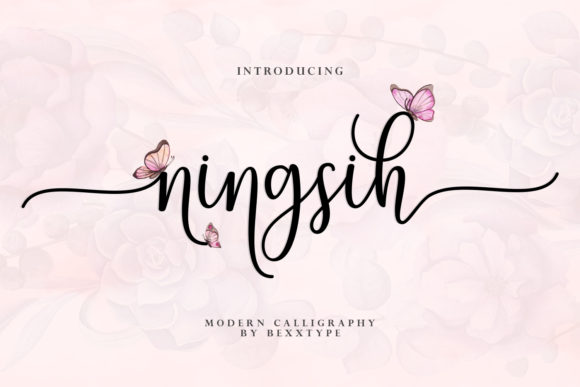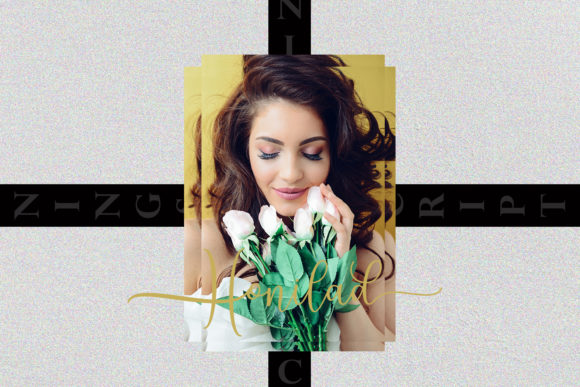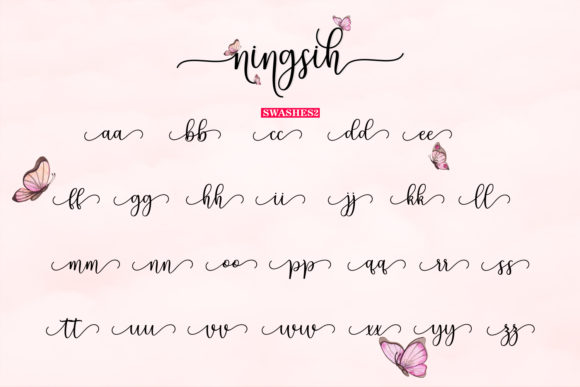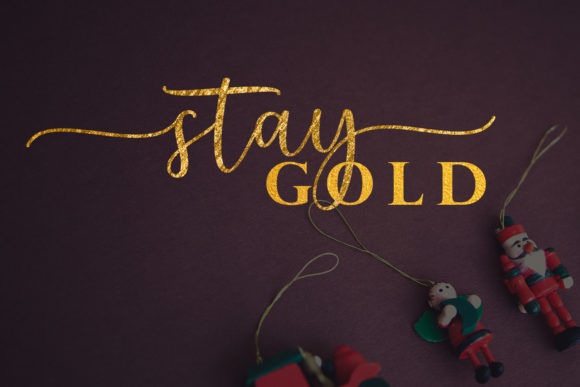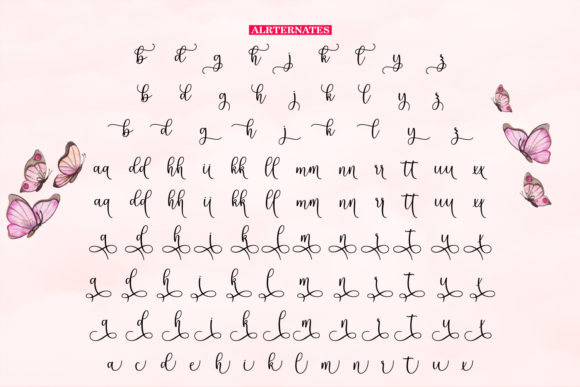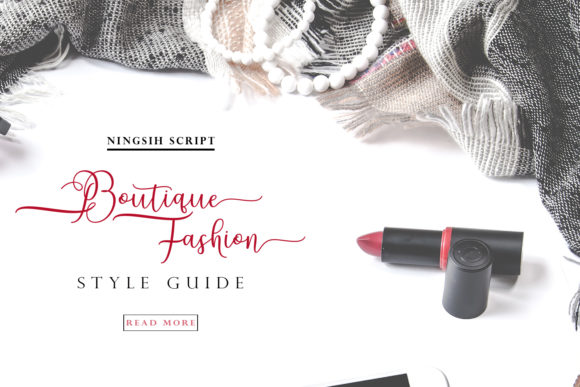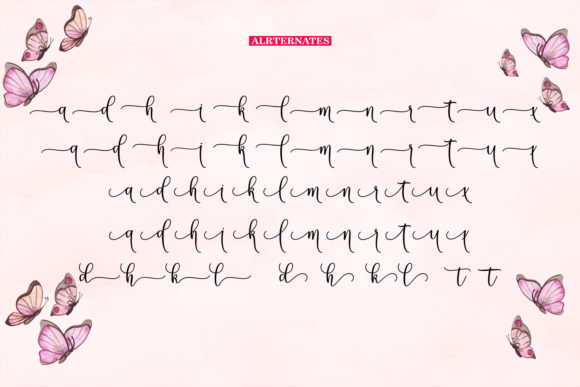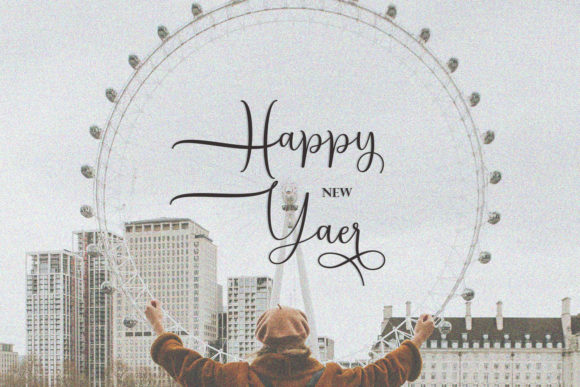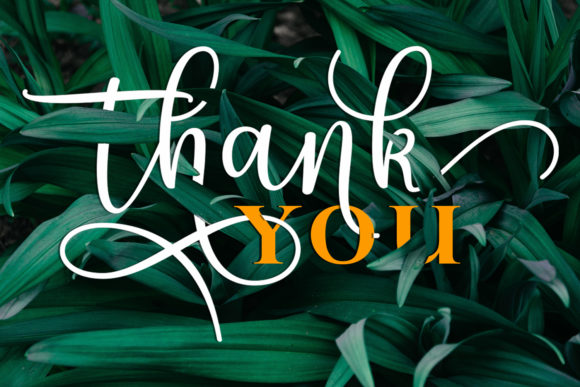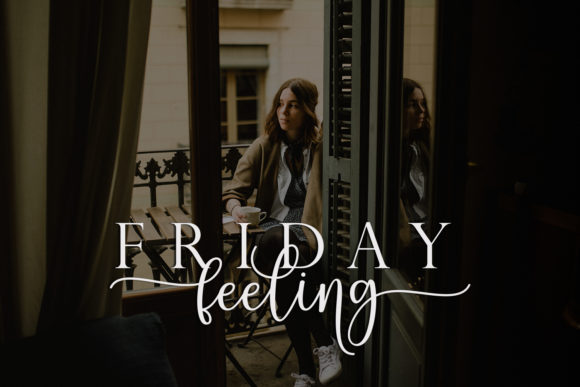
Ningsih Font
About Ningsih Font
Ningsih is a dazzling script that will turn any design project into a true standout. Get inspired by its playful and romantic charm!